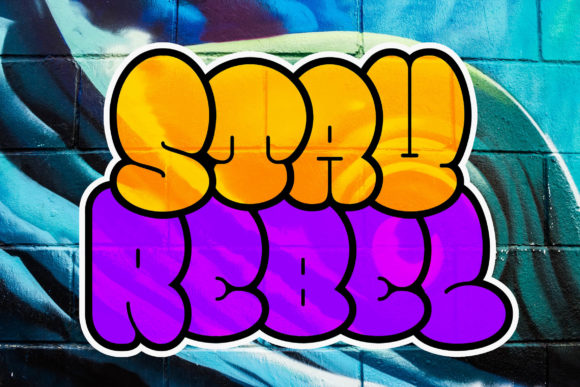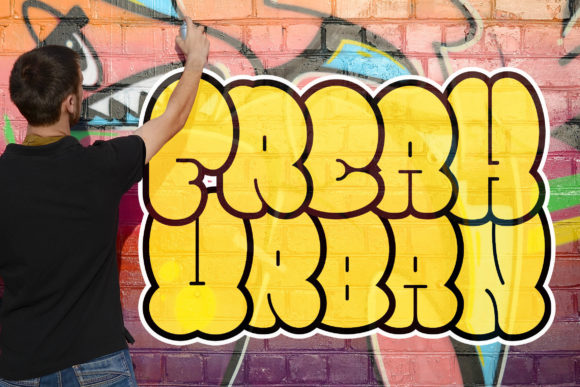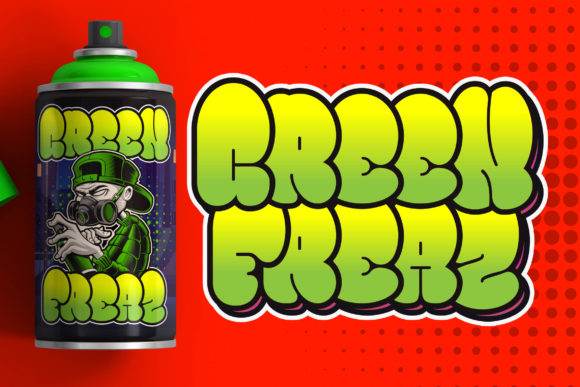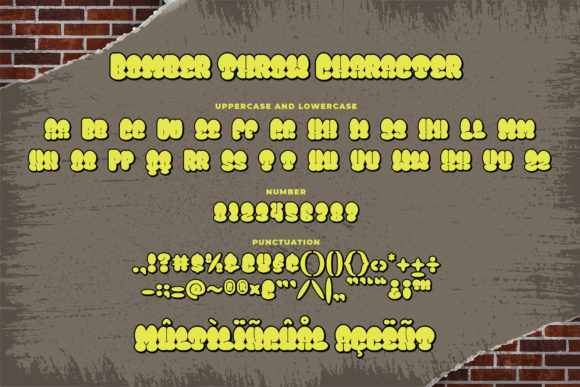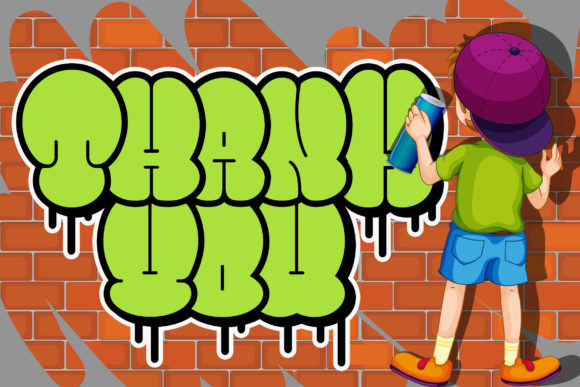
Bomber Throw Font: The Ultimate Graffiti-Style Display Font for Fun and Creative Projects
Are you a designer, crafter, or DIY enthusiast looking for a font that embodies playfulness and authenticity? Look no further than the Bomber Throw Font! This cool, bubbly, graffiti-styled display font is perfect for any children activity or school project that requires a fun and lively touch.
What is Bomber Throw Font?
Bomber Throw Font is a unique and eye-catching font that is designed to add a touch of playfulness and creativity to any project. Its graffiti-style design makes it perfect for kids’ activity sheets, school projects, posters, and any other creative endeavor that requires a fun and youthful vibe.
Key Features of Bomber Throw Font
- Graffiti-style design: Bomber Throw Font features a bold, colorful, and playful design that is reminiscent of graffiti art.
- Display font: This font is specifically designed to make a statement, making it perfect for headings, titles, and other display text.
- Cool and bubbly: The font’s playful and lively design makes it perfect for kids’ projects and activities.
- Authentic feel: The font’s graffiti-style design gives it an authentic and edgy feel that is sure to grab attention.
Uses for Bomber Throw Font
Bomber Throw Font is a versatile font that can be used for a wide range of creative projects, including:
- Kids’ activity sheets: Add a fun and playful touch to your kids’ activity sheets with Bomber Throw Font.
- School projects: Make your school projects stand out with this unique and eye-catching font.
- Posters and flyers: Use Bomber Throw Font to create eye-catching posters and flyers for kids’ events and activities.
- DIY crafts: Add a personal touch to your DIY crafts with this fun and playful font.
Why Choose Bomber Throw Font?
So why choose Bomber Throw Font for your next project? Here are just a few reasons:
- Unique design: Bomber Throw Font features a unique and eye-catching design that is sure to grab attention.
- Playful and fun: This font is perfect for kids’ projects and activities that require a playful and fun touch.
Tips for Using Bomber Throw Font
Here are a few tips for using Bomber Throw Font in your next project:
- Use it sparingly: Bomber Throw Font is a bold and eye-catching font, so use it sparingly to avoid overwhelming your design.
- Pair it with other fonts: Pair Bomber Throw Font with other fonts to create a unique and interesting design.
- Experiment with colors: Bomber Throw Font looks great in bright, bold colors, so don’t be afraid to experiment and find the perfect color for your design.
Bomber Throw Font is a cool, bubbly, graffiti-styled display font that is perfect for any children activity or school project. Its playful and authentic design makes it a great choice for designers and crafters who want to add a fun and lively touch to their projects. With its unique design, ease of use, and versatility, Bomber Throw Font is a great addition to any design or crafting toolkit.